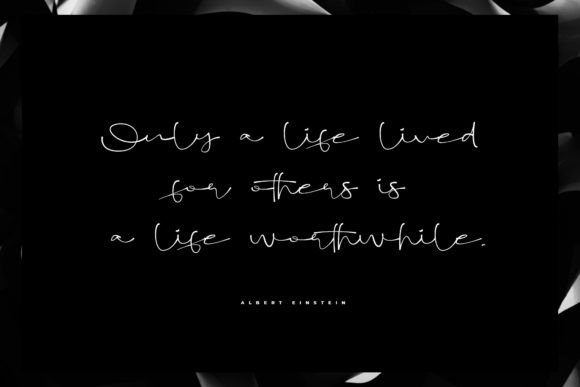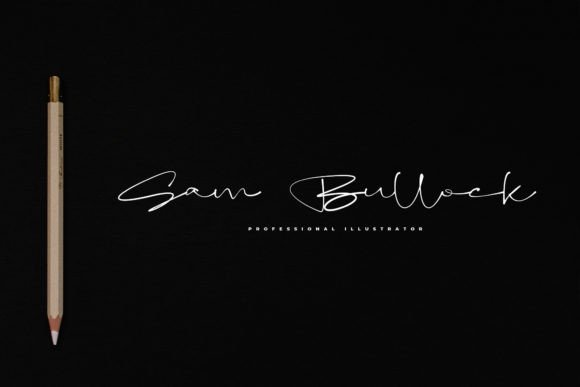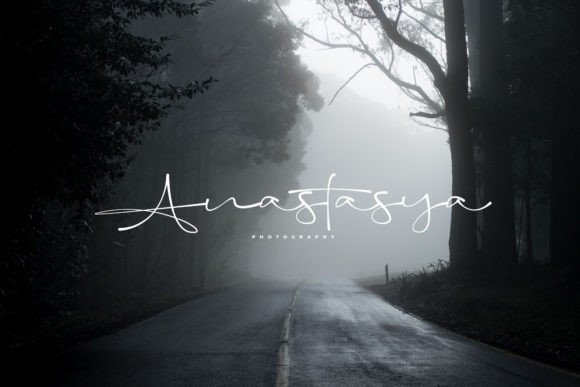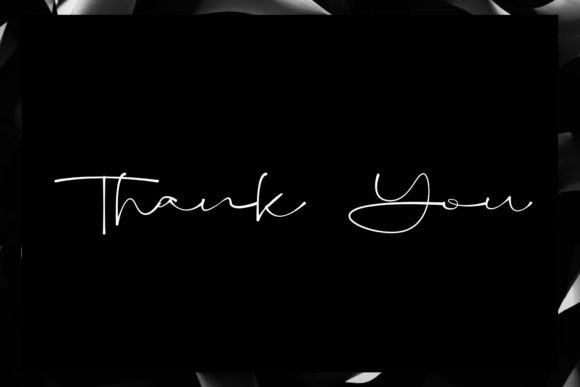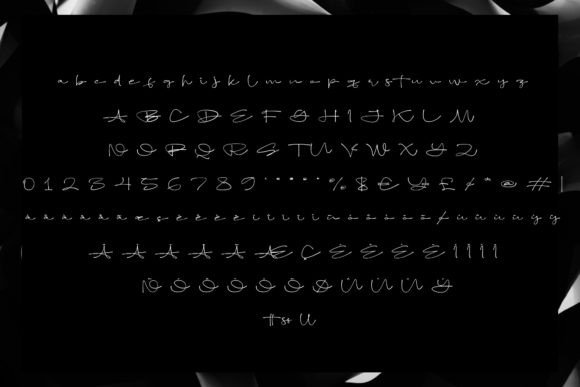
Jadamath Font
A Delicate and Elegant Handwritten Typeface
Jadamath Font is a delicate, elegant, and flowing handwritten script that brings a refined, sophisticated touch to any design. With its beautifully balanced characters and graceful strokes, this font is perfect for creating timeless and artistic designs. Whether you’re working on wedding invitations, logos, greeting cards, or branding materials, the Jadamath Font provides a personalized and charming feel to your work.
Perfect for Wedding Invitations and Special Occasions
For wedding invitations and special occasion stationery, the Jadamath Font is an ideal choice. Whether you’re designing RSVP cards, thank-you notes, or save-the-dates, this font adds a romantic and elegant touch to your designs. Its flowing, handwritten style ensures your invitations stand out as timeless, beautiful, and luxurious. The Jadamath Font makes your event materials feel sophisticated and personalized, perfect for weddings, anniversaries, and other special events.
Great for Logos and Branding Projects
For logos and branding projects, the Jadamath Font offers an artistic and refined style that helps create a memorable and distinctive brand identity. Whether you’re designing a luxury brand logo, personal brand, or corporate materials, this font brings a unique handwritten touch that elevates your branding materials. The Jadamath Font is perfect for businesses in industries such as fashion, beauty, or lifestyle, ensuring your logo feels both high-end and approachable.
Ideal for Social Media and Digital Content
For social media posts and digital content, the Jadamath Font is a fantastic choice. Whether you’re creating Instagram graphics, Facebook posts, or Pinterest pins, this font ensures your content feels elegant and personalized. Ideal for quote graphics, event promotions, or product advertisements, the Jadamath Font adds a graceful and timeless touch to your digital content. Its refined appearance helps you create memorable, engaging posts that stand out on social media.
Ideal for Greeting Cards and Invitations
For greeting cards and invitations, the Jadamath Font is perfect for adding a charming and elegant touch. Whether you’re designing birthday cards, thank-you notes, or holiday greetings, this font brings a sophisticated, personalized feel to your designs. Its delicate handwritten style ensures that your cards feel both luxurious and warm, making them ideal for formal and casual occasions alike. The Jadamath Font elevates your greeting cards, ensuring they leave a lasting impression.
Perfect for Product Packaging and Labels
For product packaging and labels, the Jadamath Font provides a premium and refined style that enhances your branding. Whether you’re designing product labels, gift packaging, or seasonal items, this font adds a timeless, personalized touch to your products. Ideal for artisan goods, luxury products, and custom gifts, the Jadamath Font ensures that your packaging stands out with elegance and quality. Its graceful handwritten style gives your products an artistic and high-end appeal.
Versatile, Legible, and Elegant
Despite its delicate handwritten design, the Jadamath Font remains legible and easy to use. Its well-spaced characters and consistent strokes ensure that your text remains clear and readable, even for longer passages or smaller sizes. Whether you’re using it for headlines, captions, or body text, this font strikes the perfect balance between creativity and  making it suitable for a wide range of design applications, from print to digital media.
The Jadamath Font is easy to use and integrates smoothly into most design software. Whether you’re working on wedding invitations, logos, greeting cards, or social media content, this font ensures your designs look polished and professional while maintaining a personalized touch. Its  makes it perfect for both print and digital media, giving you the flexibility to use it across various projects with ease.
Add Elegance and Charm to Your Designs with Jadamath Font
If you’re looking for a delicate, elegant handwritten font that adds a timeless, personalized touch to your designs, the Jadamath Font is the perfect choice. Whether you’re designing wedding invitations, logos,  cards, or social media posts, this font will help you create memorable, refined designs that stand out. Let the Jadamath Font bring a graceful, artistic touch to your projects and leave a lasting impression with its elegance and sophistication.